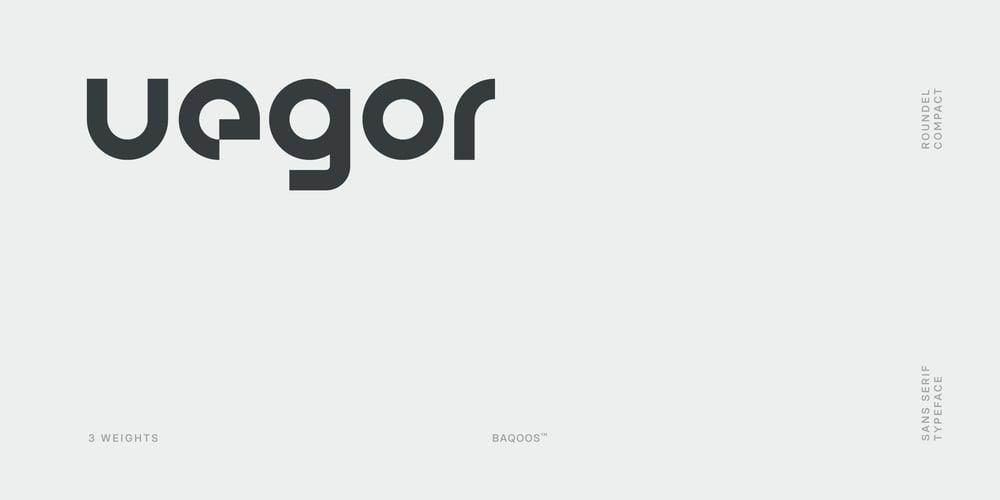
Uegor
Uegor font
Uegor Font Family was designed by Andrew Seah and published by Baqoos. Uegor contains 3 styles and family package options. Uegor is a roundel compact linear sans apt for headline, editorial, branding, packaging, printed materials and typographic applications. 150+ glyphs with ligatures and fractions provided in opentype .otf and .woff format.